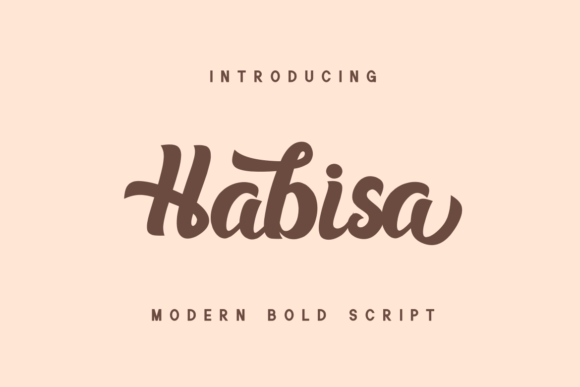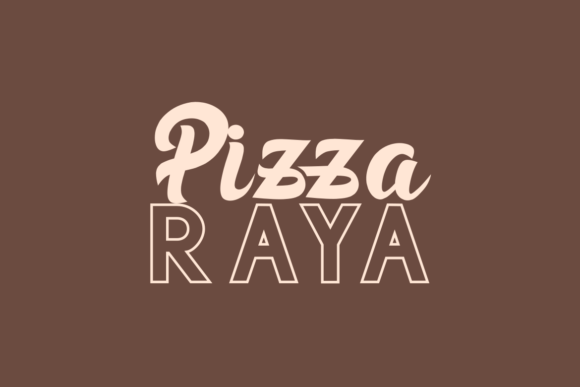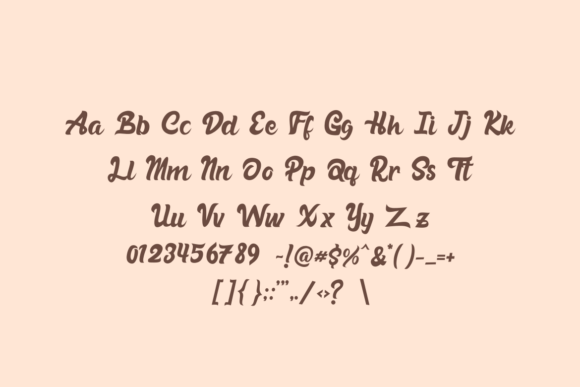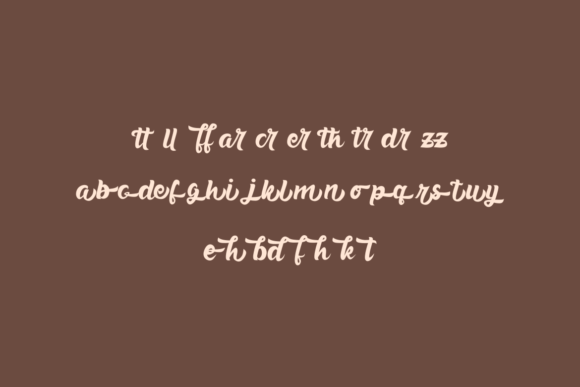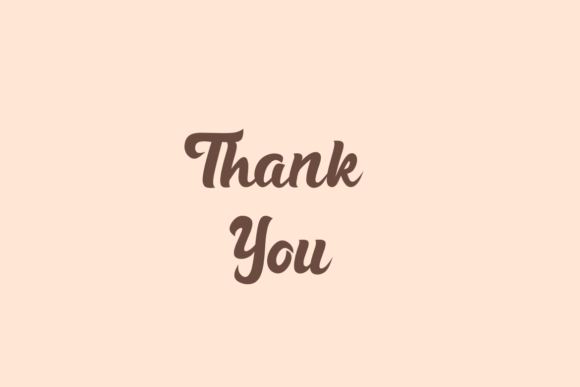
The Perfect Brush for Your Next Creative Project
Have you ever been working on a design project, and suddenly you’re stuck for hours trying to find the perfect font? You’ve searched through countless options, but none of them seem to capture the essence of your vision. That’s when I discovered the Habisa Font – a modern handwritten font that’s been handcrafted with the help of a brush pen.
The Habisa Font is a game-changer for designers, offering a unique blend of style and versatility. With its PUA encoding, you’ll have access to all of the glyphs and swashes, allowing you to create truly stunning designs. Whether you’re crafting wedding invitations, social media posts, or beautiful stationary art, the Habisa Font is sure to elevate your work to the next level.
Habisa Font Key Features
- Character Set: The font includes a comprehensive character set, covering Latin, Cyrillic, and Greek alphabets, as well as a range of symbols and punctuation marks.
- Unique Characteristics: Habisa Font features a distinctive, hand-drawn design with bold lines and geometric shapes, giving it a modern and artistic feel.
Habisa Font Review
I recently had the chance to work with the Habisa font, and I must say it’s a mixed bag. While it has some great qualities, it also has some limitations that make it less than ideal for certain projects.
- Unique and quirky design: Habisa has a distinct, playful feel that’s perfect for projects that need a bit of personality.
- High contrast: The bold, dark lines and bright, open spaces make it easy to read even at smaller sizes.
- Fun for display use: Habisa is a great choice for headings, titles, and other display text where you want to make a statement.
- Limited legibility: While Habisa looks great at larger sizes, it can become difficult to read at smaller sizes due to its quirky design and high contrast.
- Not suitable for body text: The font’s unique design makes it less than ideal for large blocks of text, where legibility is key.
- May not be accessible: Habisa’s high contrast and unique design may not be accessible for users with certain visual impairments.
Overall, Habisa is a fun, playful font that’s perfect for projects that need a bit of personality. However, it’s not suitable for every project, and its limitations should be carefully considered before using it for body text or other critical content.
For the most effective use of Habisa Font, try using it in bold or italic styles to add emphasis to your text. It’s also a great font for creating eye-catching headings and titles. In design, it’s commonly used for logos, posters, and other marketing materials.